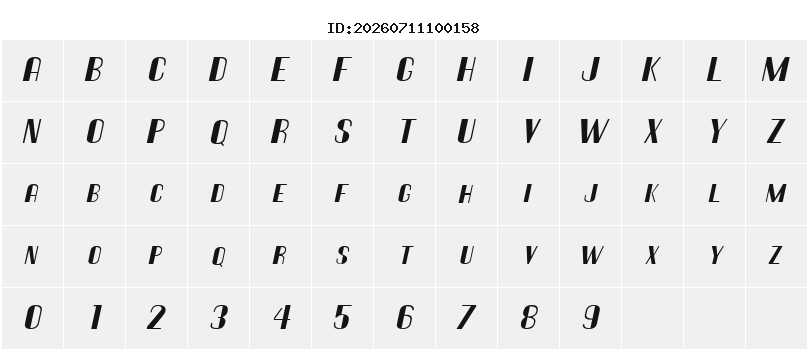
Hallandale Deco It.SC JL Preview
• Font Name: Hallandale Deco It.SC JL
• Font ID: Hallandale Deco It.SC JL
• Full Font Name: Hallandale Deco It.SC JL
• Version: version 1.00
• PostScript Name: HallandaleDecoItSCJL
• Character Count: 92
• Designer: Jeffrey N. Levine
• Description: "Hallandale Deco Italic Small Caps JL".
About Hallandale Deco It.SC JL.ttf
Hallandale Deco It.SC JL.ttf is a modern, elegant sans-serif font designed for ultimate readability and visual harmony. Perfect for branding, headlines, web design, and print materials.